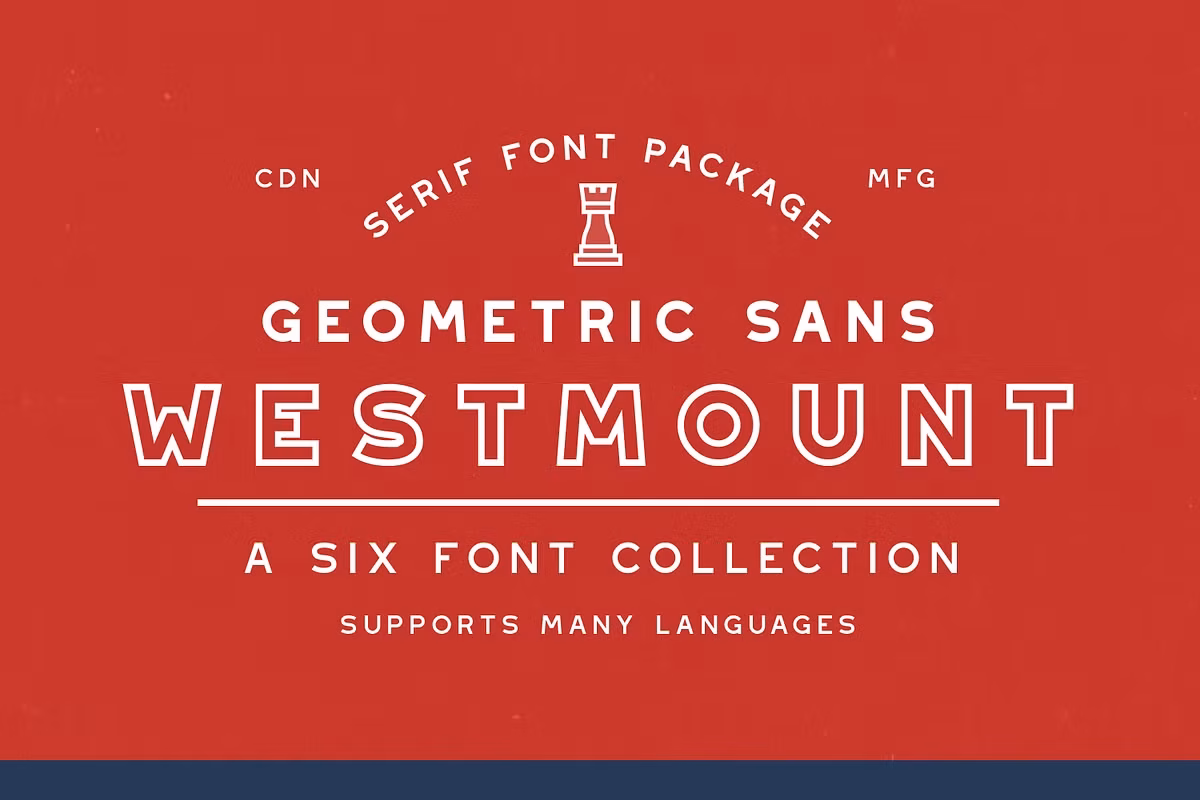
Westmount - 6 Sans Serif Fonts Free Download
Upgrade your font library with Westmount – 6 Sans Serif Fonts Free Download, a versatile font family designed for clean, modern aesthetics. You need to purchase this font for commercial use. However, you can test it in personal or demo projects using Westmount – 6 Sans Serif Fonts Free Download. Featuring six distinct styles, this family offers flexibility for branding, web design, editorial layouts, presentations, and more. Its sleek geometry and professional look make it a favorite among designers seeking clarity and sophistication. Download Westmount – 6 Sans Serif Fonts Free Download today and bring polished, contemporary style to your next creative project.